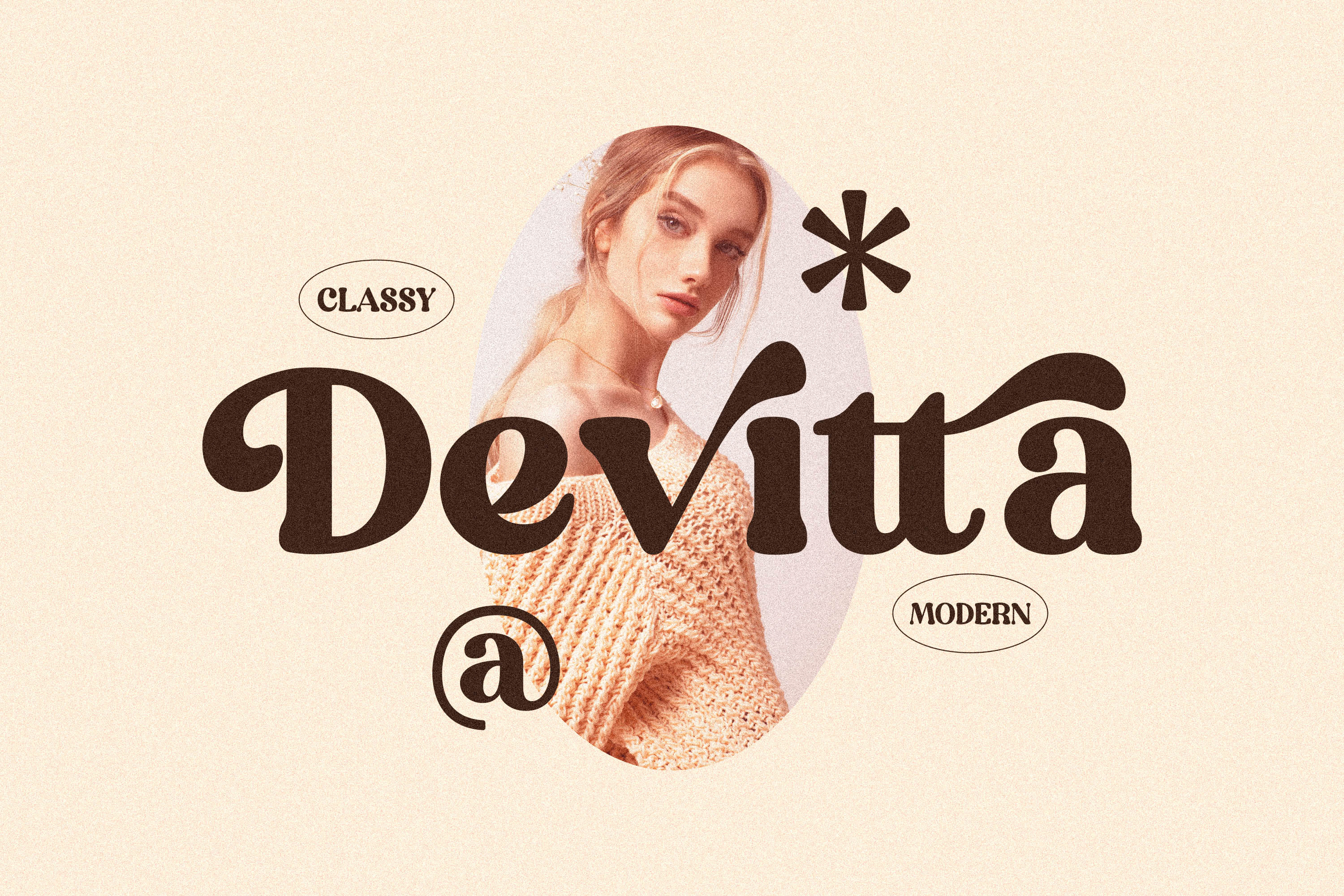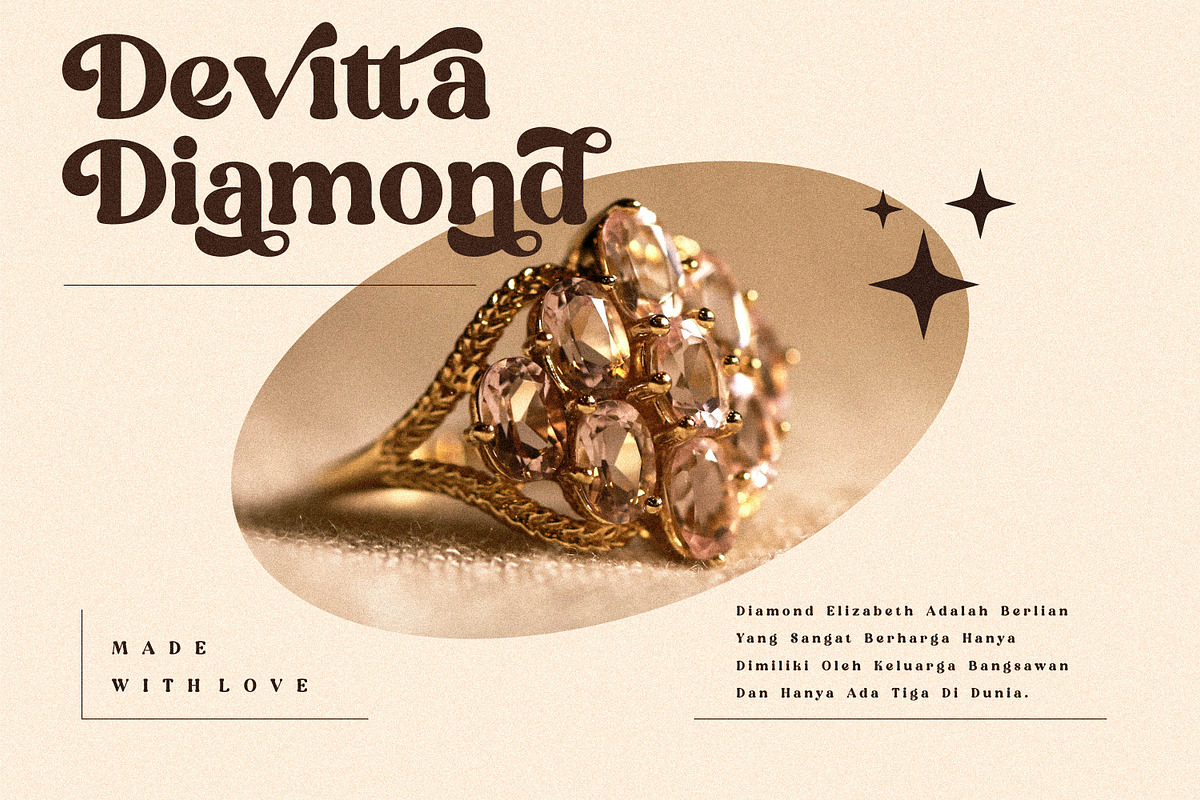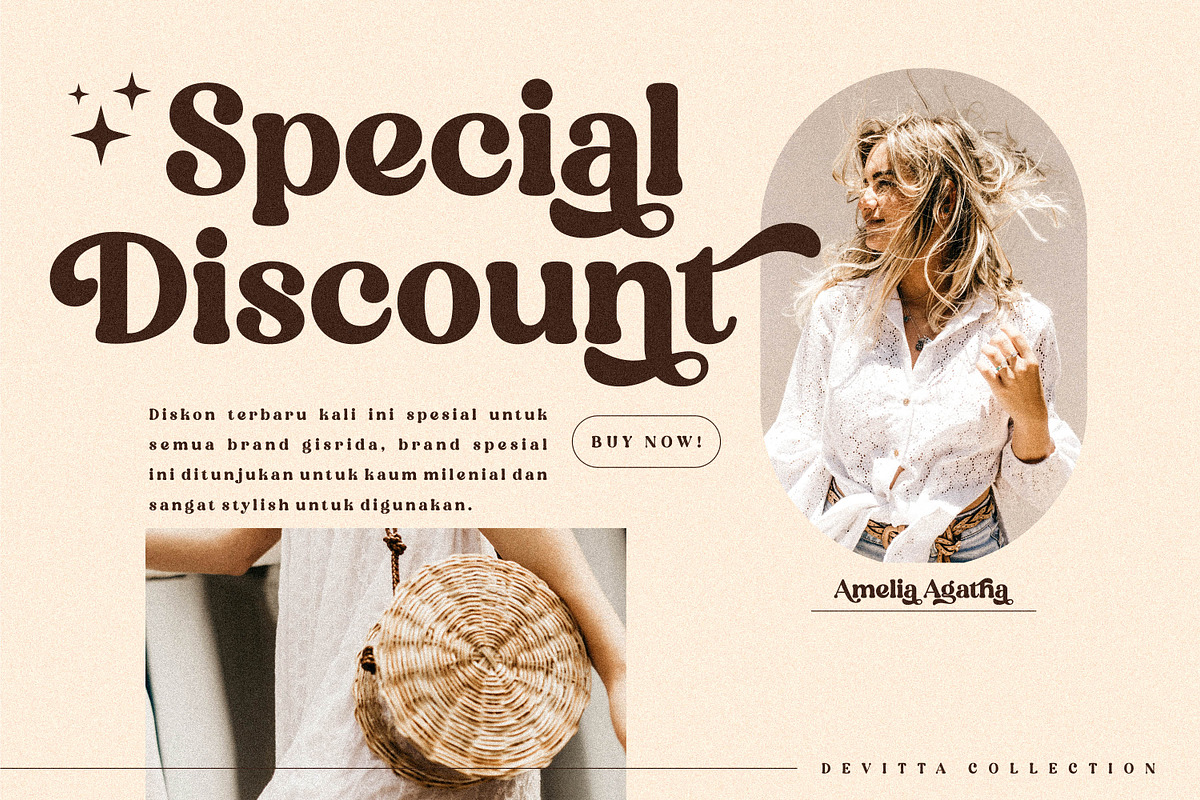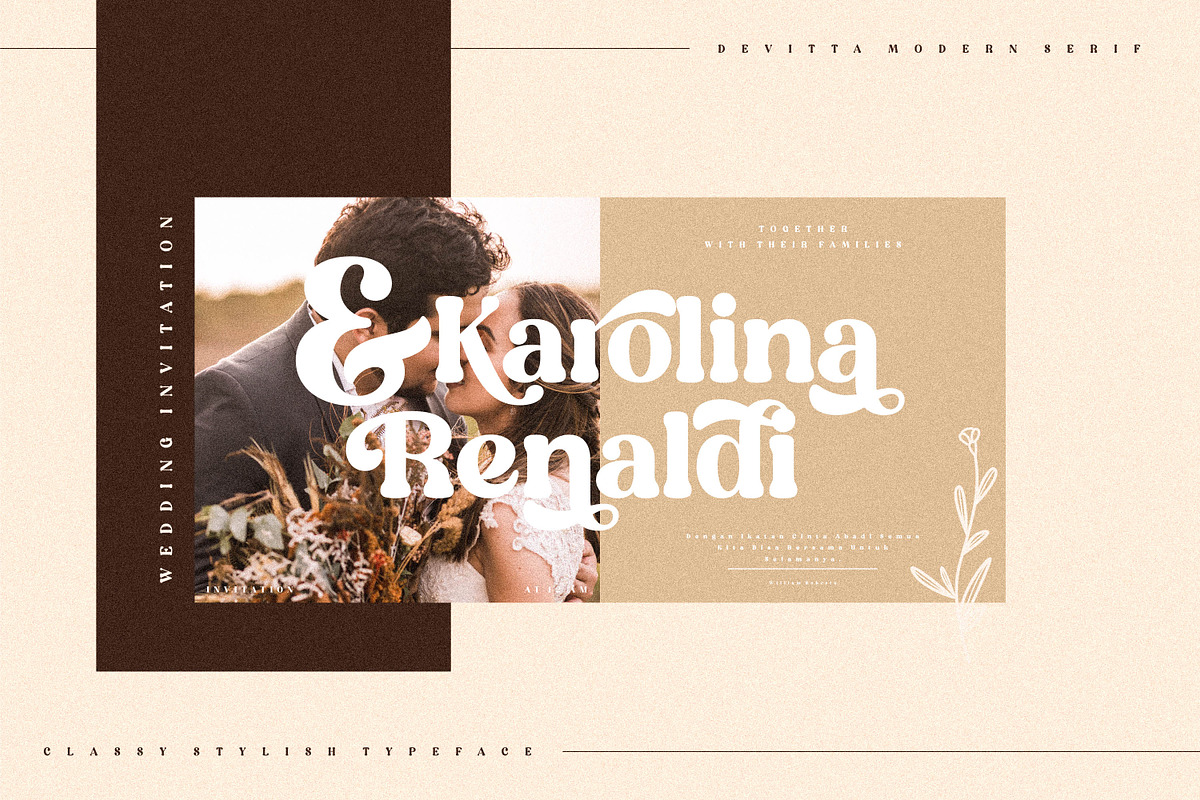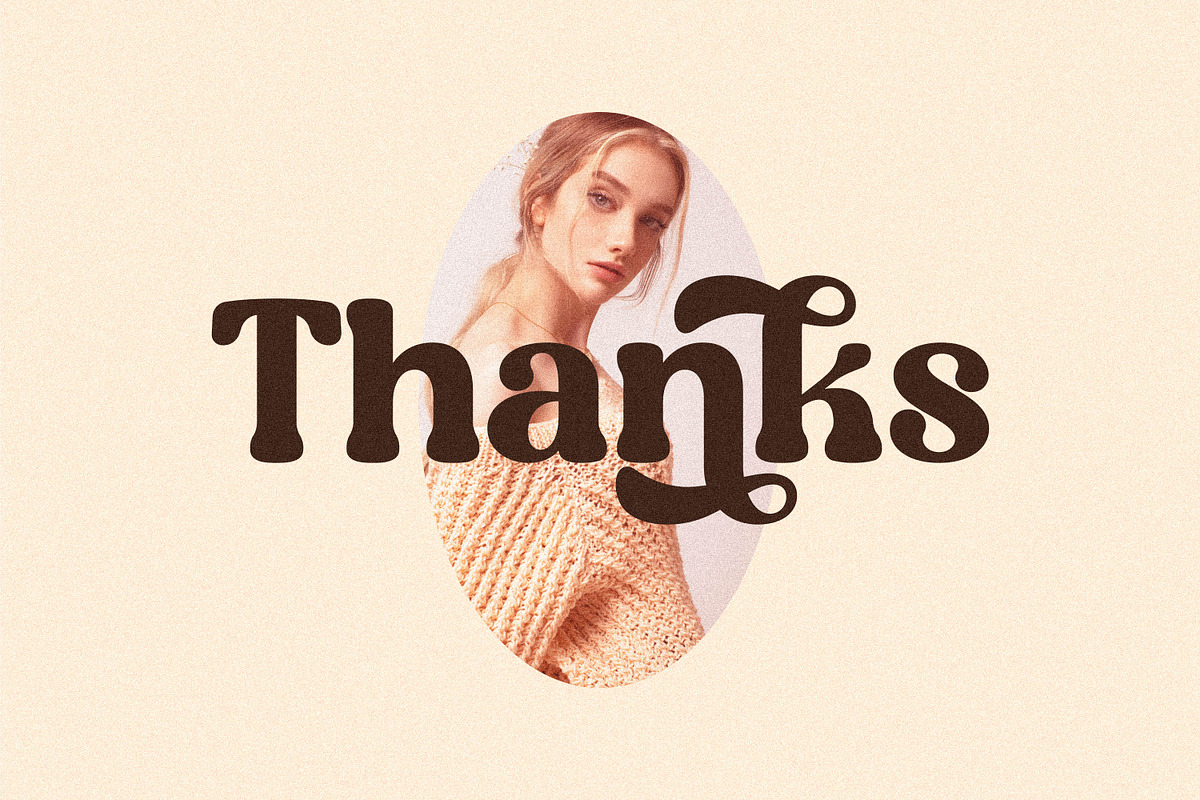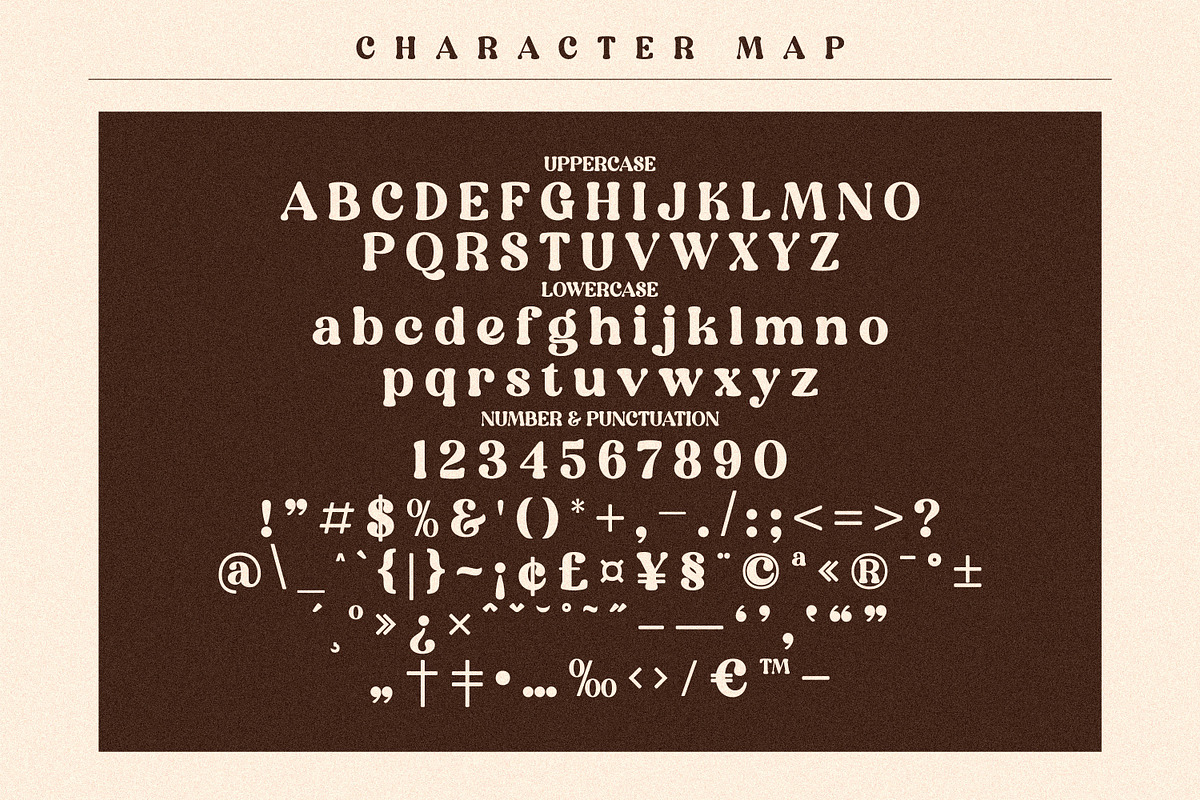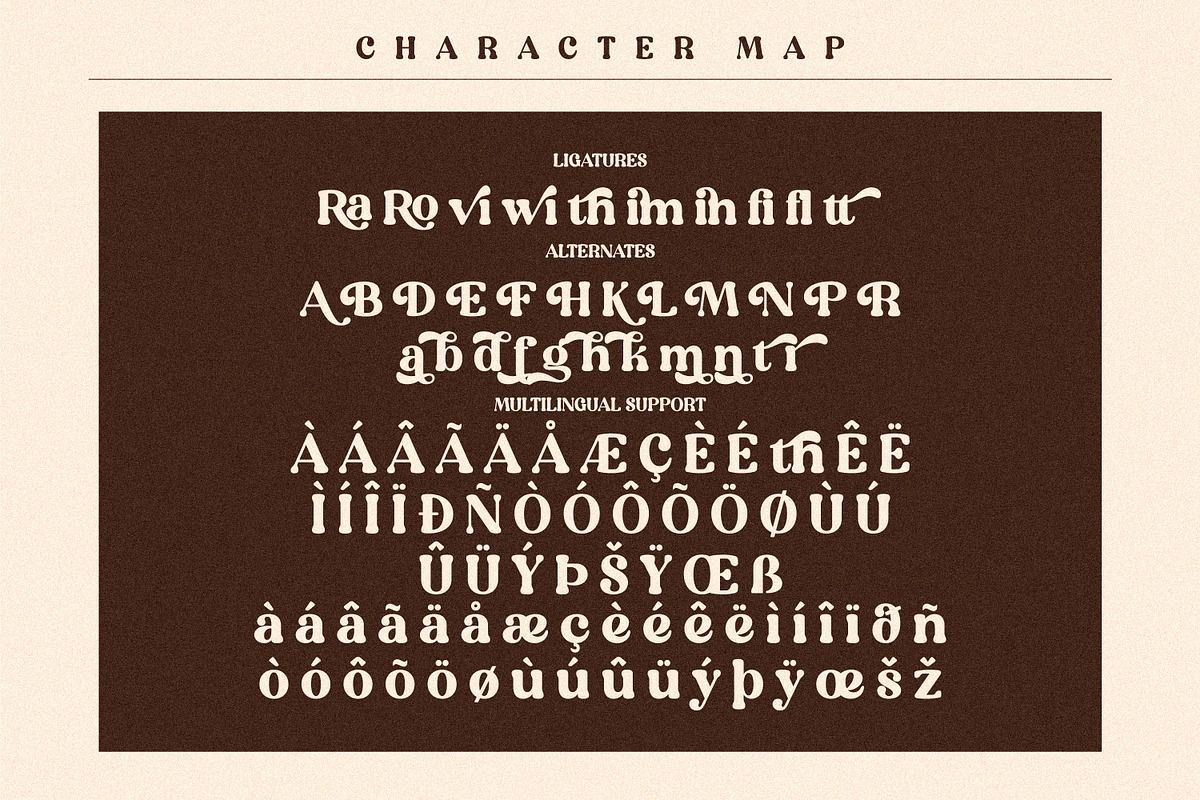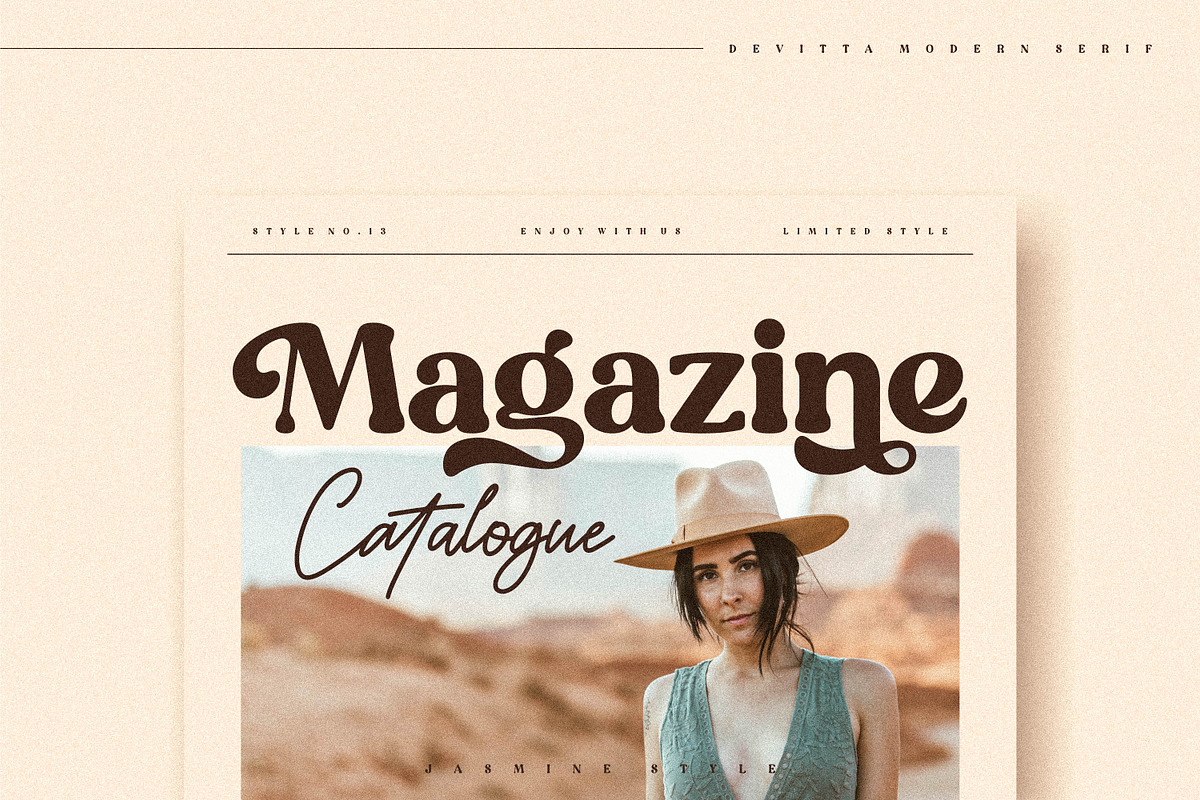
Devitta Classy Bold Serif Font
Proudly present Devitta Typeface, created by Storytype, A serif modern and classic typeface that has own unique style & modern look.
This typeface is perfect for an elegant & luxury logo, book or movie title design, fashion brand, magazine, clothes, lettering, quotes, and so much more.